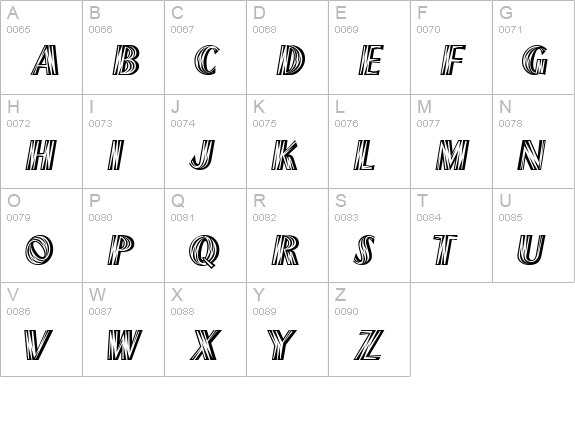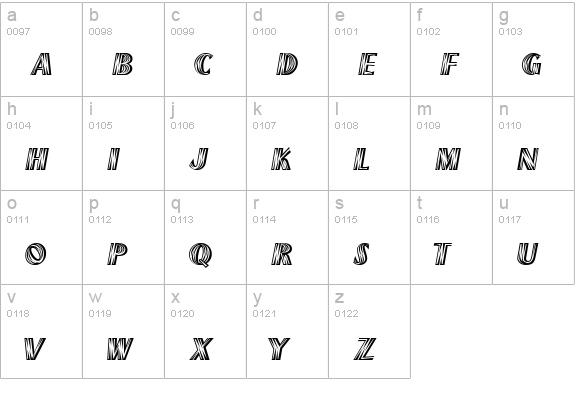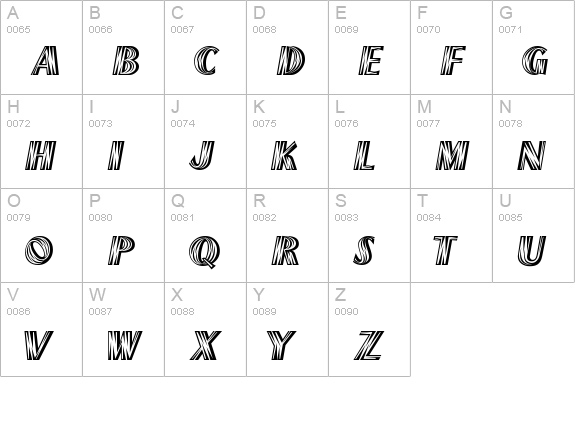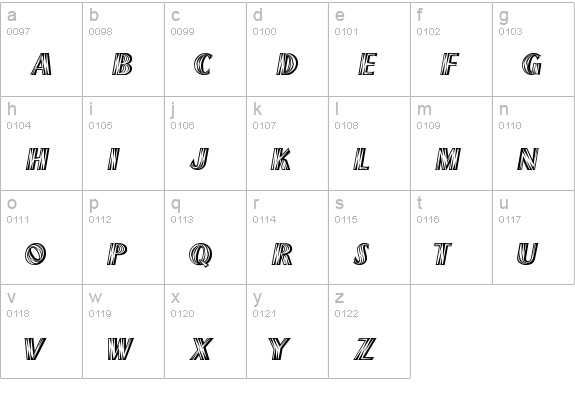
GE Nervous Twitch Font Details
GE Nervous Twitch font is a quirky and playful typeface that exudes a sense of energy and movement. Its irregular shapes and varying line weights give it a unique and dynamic appearance, making it perfect for adding a touch of whimsy to your designs. Whether you're looking to create eye-catching headlines or eye-catching logos, this font is sure to make a statement. And the best part? GE Nervous Twitch font is available for free download at FontsMarket.com. So go ahead and grab this fun and lively font to add a little extra flair to your projects!